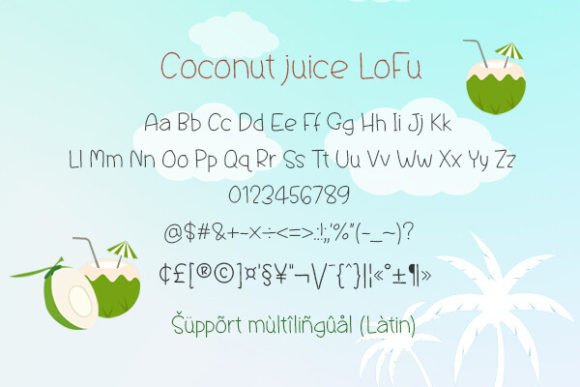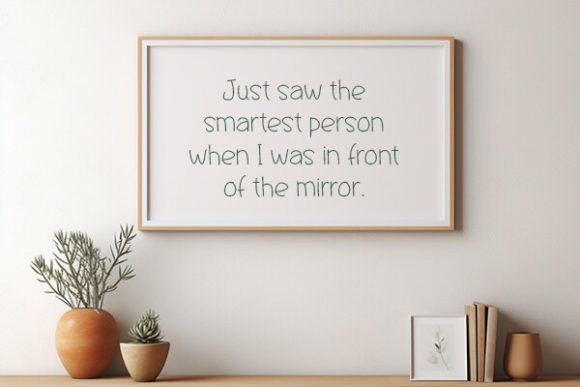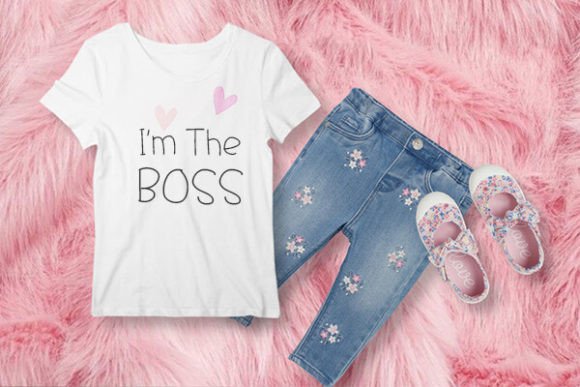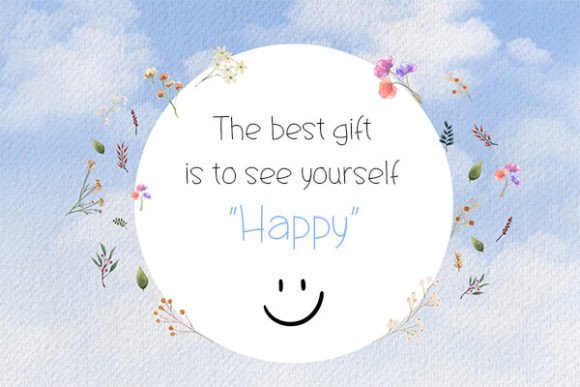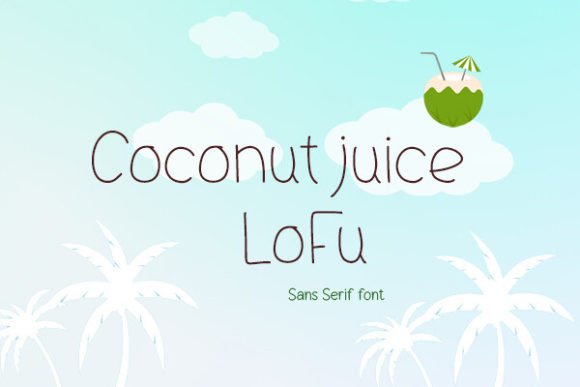
Coconut Juice LoFu Font: The Perfect Addition to Your Fun and Creative Designs
Are you a designer or crafter looking for a unique and playful font to add a relaxed touch to your projects? Look no further than Coconut Juice LoFu Font! This adorable sans serif font is designed to bring a cute, minimal, and playful vibe to your designs, making it perfect for a wide range of creative projects.
What is Coconut Juice LoFu Font?
Coconut Juice LoFu Font is a carefully crafted sans serif font that exudes a fun and carefree spirit. Its clean and minimalist design makes it an excellent choice for designers and crafters who want to add a touch of playfulness to their work. Whether you’re creating logos, posters, blogs, or children-themed designs, this font is sure to impress.
Key Features of Coconut Juice LoFu Font
- Cute and Playful Design: Coconut Juice LoFu Font boasts a charming and whimsical design that’s perfect for projects that require a relaxed and fun touch.
- Minimalist Style: The font’s clean and minimalist style ensures that it remains versatile and easy to read, making it suitable for a wide range of applications.
- Sans Serif Font: The sans serif design of Coconut Juice LoFu Font gives it a modern and fresh feel that’s perfect for contemporary designs.
Coconut Juice LoFu Font is an excellent addition to any design project that requires a playful and relaxed touch. Here are some ideas for projects where this font would shine:
- Logos: Create a fun and memorable logo for your business or brand with Coconut Juice LoFu Font.
- Posters: Design eye-catching posters for events, promotions, or advertisements using this playful font.
- Blogs: Add a touch of personality to your blog with Coconut Juice LoFu Font, making it perfect for lifestyle, fashion, or food bloggers.
- Children-Themed Designs: Create engaging and fun designs for children’s products, such as toys, books, or educational materials.
- Bag and T-Shirt Designs: Add a playful touch to your apparel designs with Coconut Juice LoFu Font, making it perfect for casual wear or promotional products.
- Clothing and Accessories: Use this font to create stylish and fun designs for clothing, hats, scarves, or other accessories.
Why Choose Coconut Juice LoFu Font?
With so many fonts available, why choose Coconut Juice LoFu Font? Here are a few reasons why this font stands out:
- Unique and Playful Design: Coconut Juice LoFu Font offers a one-of-a-kind design that’s sure to make your projects stand out.
- Highly Versatile: This font is suitable for a wide range of design projects, from logos and posters to blogs and clothing designs.
- Easy to Read: The clean and minimalist design of Coconut Juice LoFu Font ensures that it’s easy to read, even at small sizes.
In conclusion, Coconut Juice LoFu Font is an excellent choice for designers and crafters looking to add a playful and relaxed touch to their projects. With its cute, minimal, and playful design, this font is perfect for a wide range of creative projects, from logos and posters to blogs and clothing designs. So why wait? Download Coconut Juice LoFu Font today and take your designs to the next level!